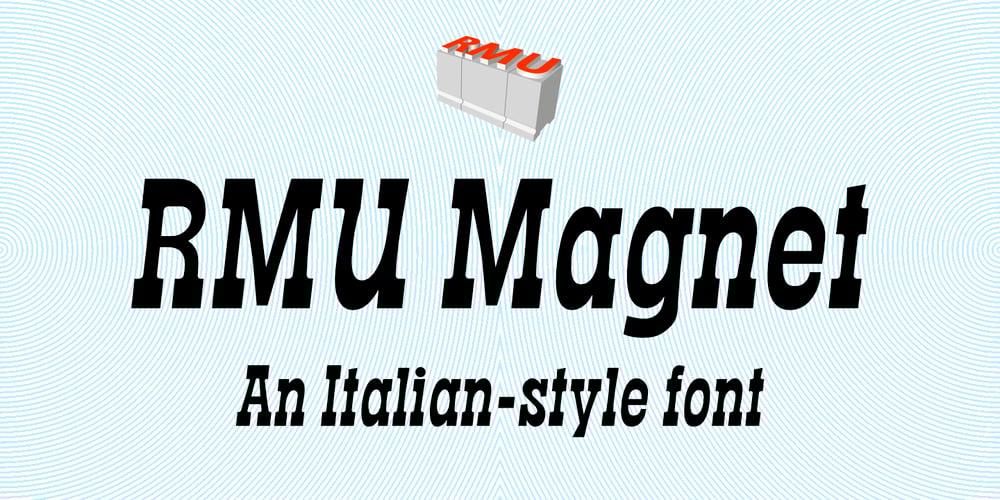
RMU Magnet Font Family was designed by Ralph M. Unger and published by RMU. RMU Magnet contains 1 styles and family package options. Based upon remnants of the Ludwig & Mayer font Magnet, first released in 1951, this Italian-style design was completely redrawn and extended for most main European languages, West and Central, plus a character set for Turkish.